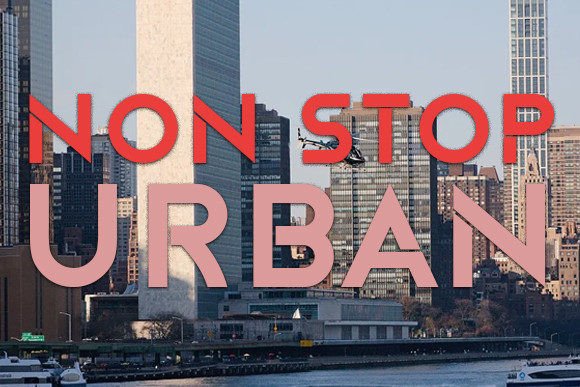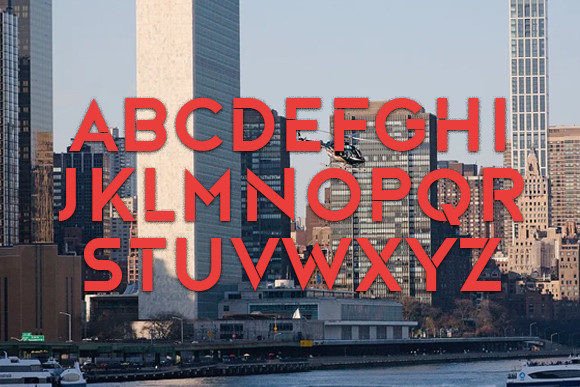
Introducing Devlin Font: The Ultimate Sans Display Font for Modern Designs
Are you tired of using the same old fonts for your designs? Look no further! Devlin Font is here to revolutionize your creative projects with its cool and stylish sans display font. This versatile font is perfect for a wide range of applications, from posters and flyers to branding and packaging. In this article, we’ll dive into the world of Devlin Font and explore its features, benefits, and uses.
What is Devlin Font?
Devlin Font is a modern sans display font designed to add a touch of sophistication and elegance to your designs. Its clean lines, geometric shapes, and stylish curves make it perfect for creating visually appealing text-based designs. Whether you’re a designer, crafty DIY enthusiast, or simply someone who loves to create, Devlin Font is an excellent addition to your font library.
Key Features of Devlin Font
- Cool and Stylish Design: Devlin Font boasts a unique and trendy design that’s sure to make your designs stand out.
- Sans Display Font: This font is specifically designed for display purposes, making it perfect for headlines, titles, and short text snippets.
- Versatile: Use Devlin Font on a variety of projects, including posters, flyers, brochures, business cards, and more.
- Easily Readable: Despite its stylized design, Devlin Font remains easily readable, even at smaller sizes.
Benefits of Using Devlin Font
So, why choose Devlin Font for your designs? Here are just a few benefits:
- Adds Visual Appeal: Devlin Font’s unique design instantly adds visual appeal to your designs, making them more engaging and attention-grabbing.
- Enhances Brand Identity: Use Devlin Font to create a consistent brand identity across various marketing materials, including business cards, brochures, and website headers.
- Perfect for DIY Projects: Devlin Font is also perfect for crafty DIY enthusiasts who want to add a professional touch to their handmade projects.
How to Use Devlin Font
Using Devlin Font is easy! Here are some ideas to get you started:
- Posters and Flyers: Create eye-catching posters and flyers for events, promotions, or announcements.
- Branding and Packaging: Use Devlin Font to create a consistent brand identity across various marketing materials.
- Business Cards: Add a touch of style to your business cards and make a lasting impression.
- DIY Projects: Use Devlin Font to add a professional touch to your handmade projects, such as crafts, scrapbooking, or party decorations.
Here are some tips and tricks to help you get the most out of Devlin Font:
- Experiment with Colors: Try pairing Devlin Font with different colors to create unique and eye-catching designs.
- Play with Sizes: Experiment with different font sizes to create visual hierarchy and add emphasis to your text.
- Combine with Other Fonts: Try pairing Devlin Font with other fonts to create a unique and stylish font combination.
In conclusion, Devlin Font is a versatile and stylish sans display font that’s perfect for modern designs. Its cool and trendy design, combined with its versatility and readability, make it an excellent addition to any design project. Whether you’re a designer, DIY enthusiast, or simply someone who loves to create, Devlin Font is sure to become a favorite in your font library. So why wait? Download Devlin Font today and start creating stunning designs!